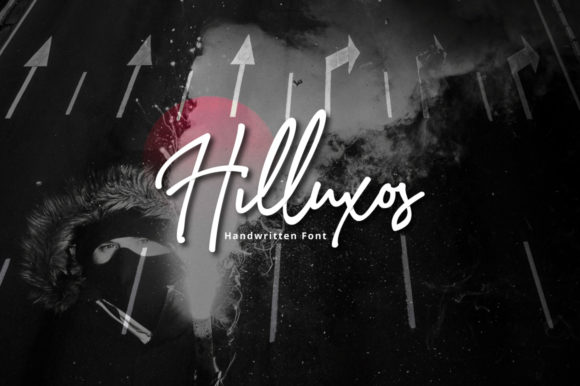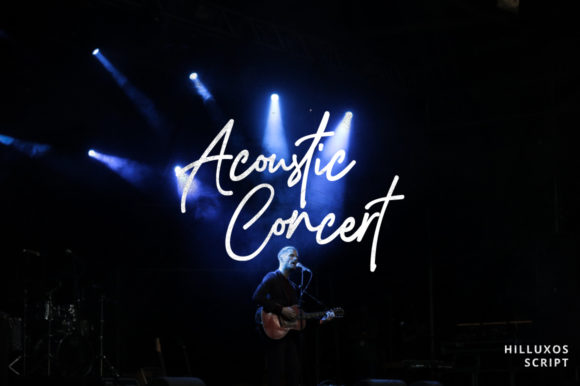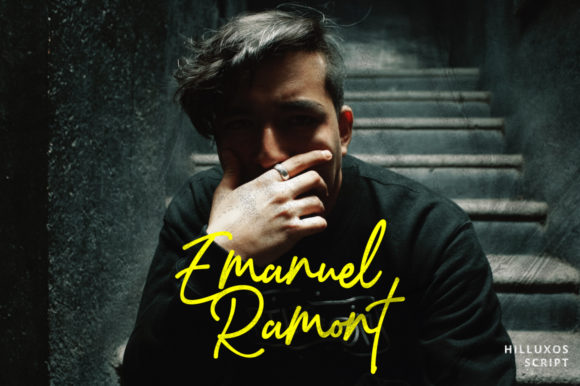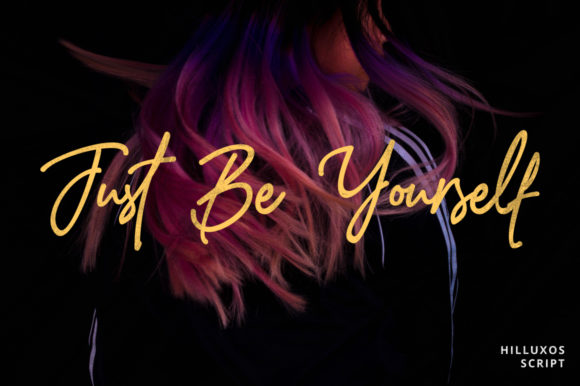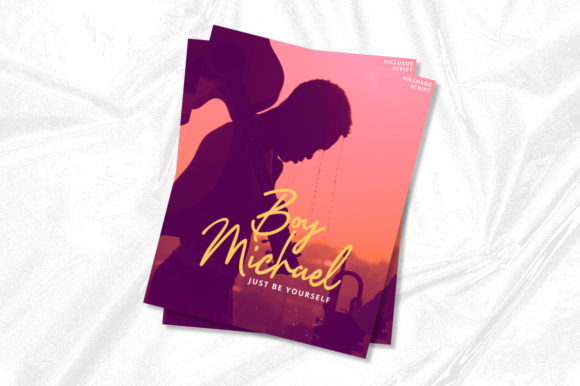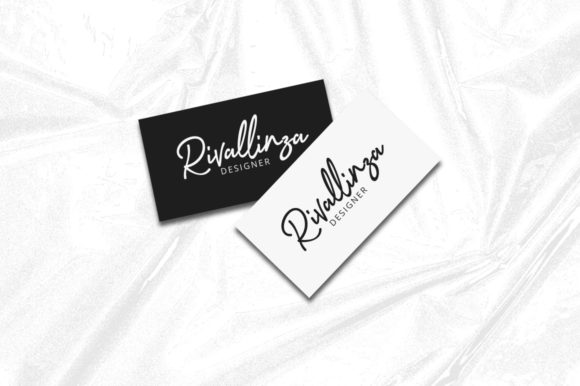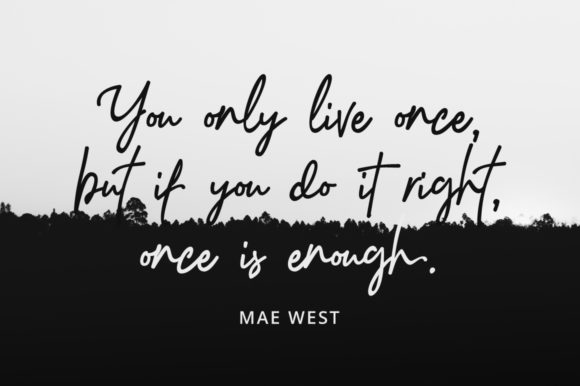
Hilluxos Font
About Hilluxos Font
Hilluxos feels luxurious and authentic, which makes it a perfect font for a wide range of designs. Use it to turn any design project into a standout!